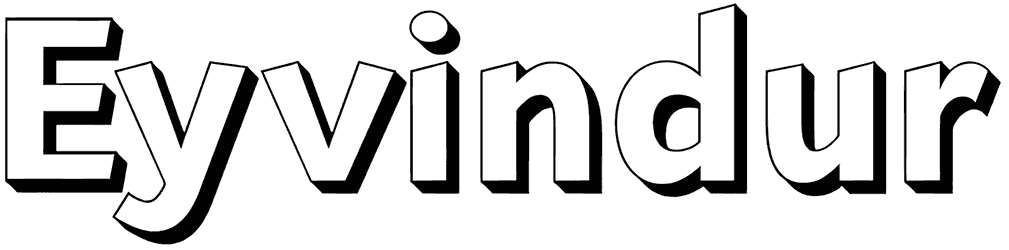
Eyvindur Font
Eyvindur is a 3D outline font that is creatively combined with shadow fonts and can speak well to your customers. This font has a geometric touch and sharp edges that convey its message clearly to others, and has a serio…
Eyvindur is a 3D outline font that is creatively combined with shadow fonts and can speak well to your customers. This font has a geometric touch and sharp edges that convey its message clearly to others, and has a serious look with a modern touch. Using this font for stationery, branding, clothing, and website headers can show your mastery and accuracy.
Eyvindur is a super stylish 3d display typeface. Perfect for creating bold headlines, logos, posters and so much more!